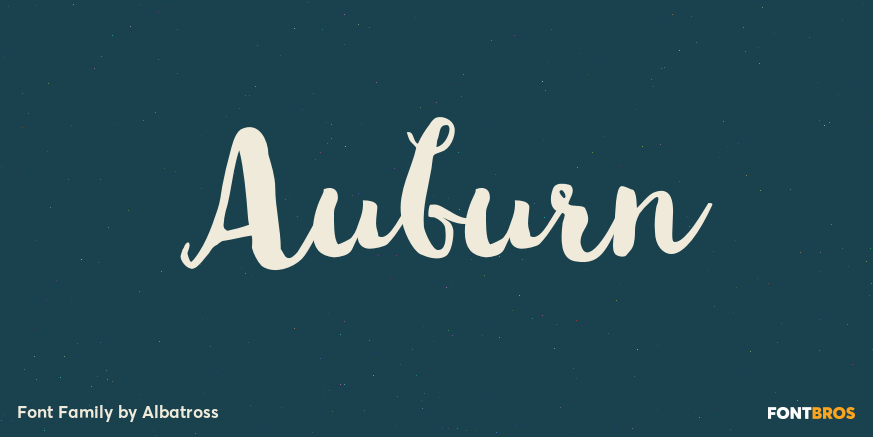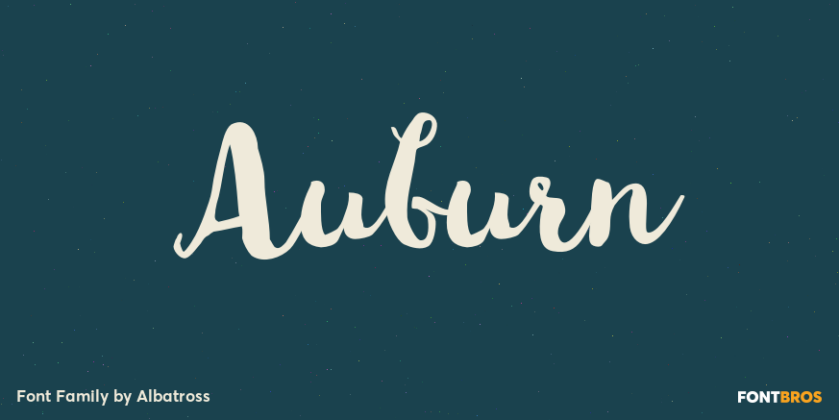
Auburn
About Auburn
Auburn is a bold, hand-drawn brush script packed with OpenType features and accompanied by a handy set of extra, including catchwords and flourishes. Auburn was created by hand with Japanese brush pens for an authentic and organic script feel. With plenty…